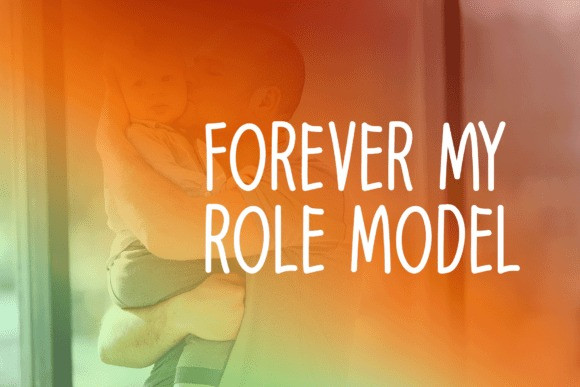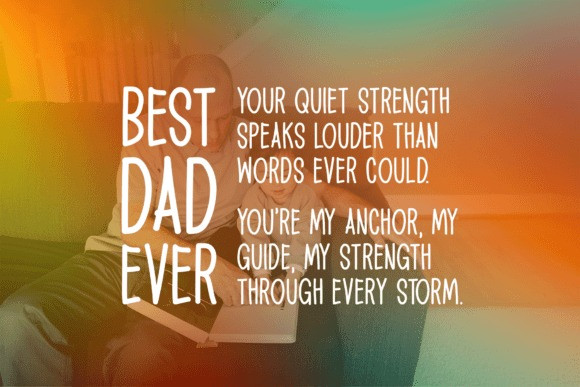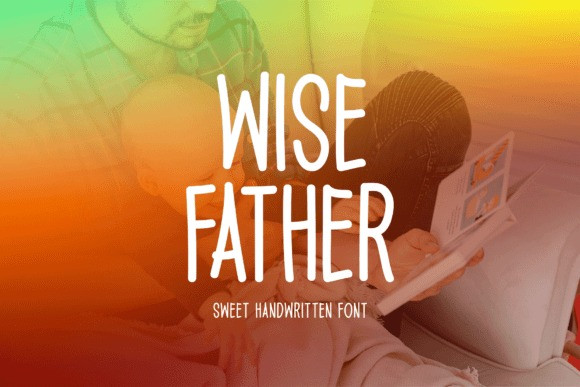
Wise Father Font
Wise Father Font is a playful and sweet handwritten typeface, great for a wide range of creative projects. Whether you’re designing for print or digital—logos, t-shirts, flyers, websites, or music covers—this font adds a personal and stylish flair.